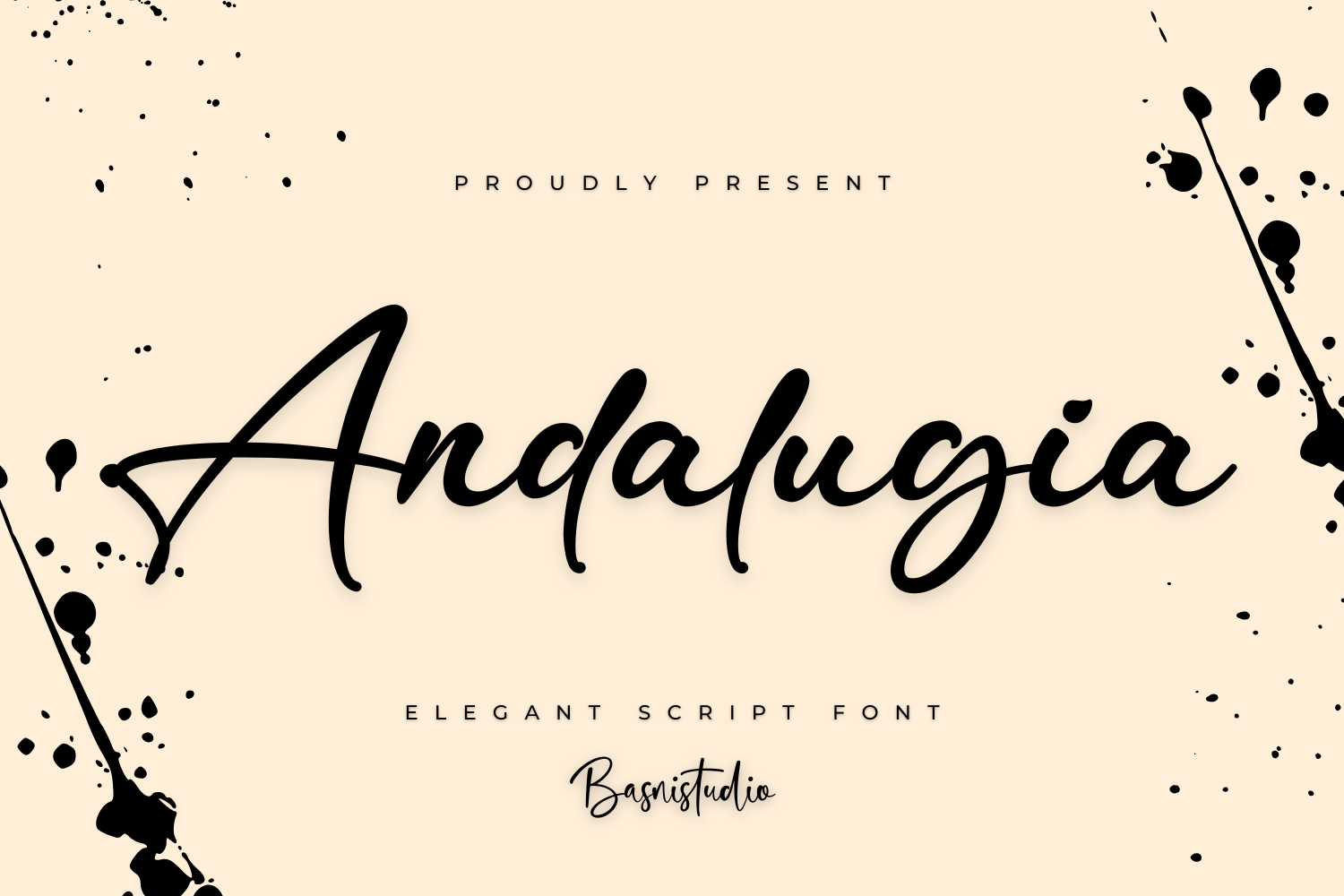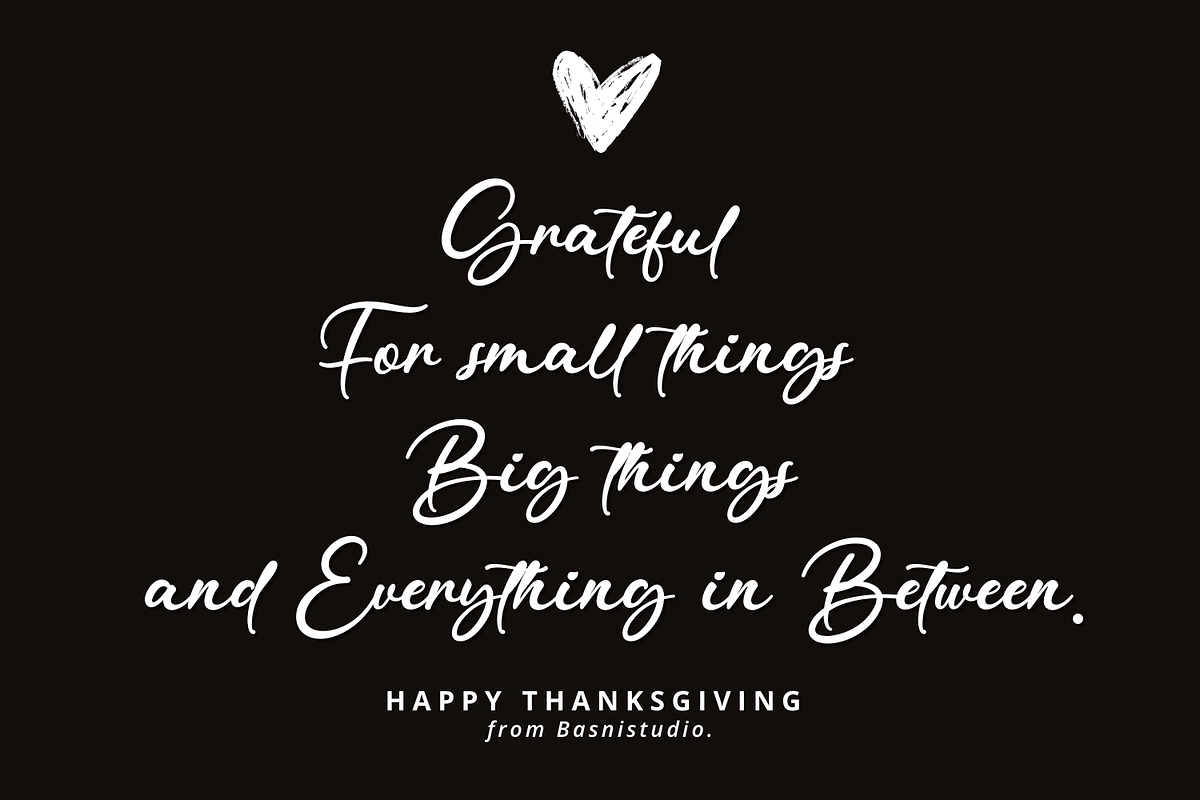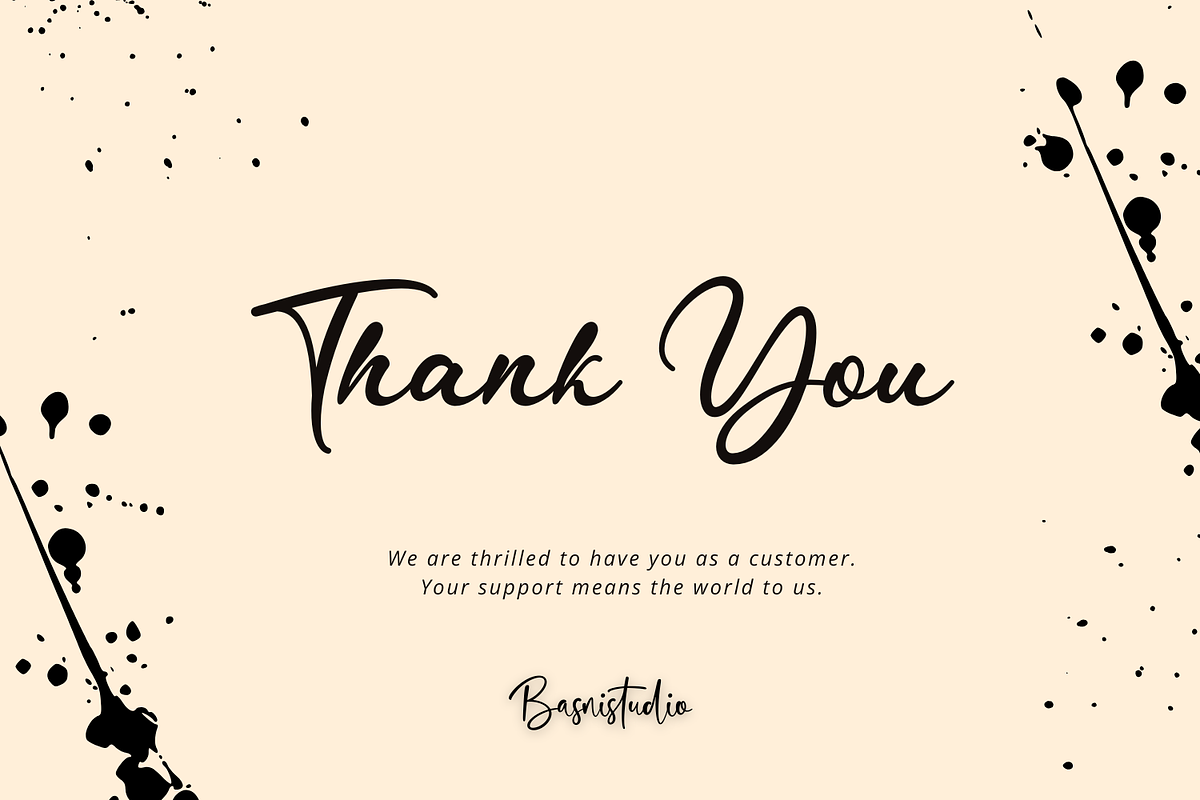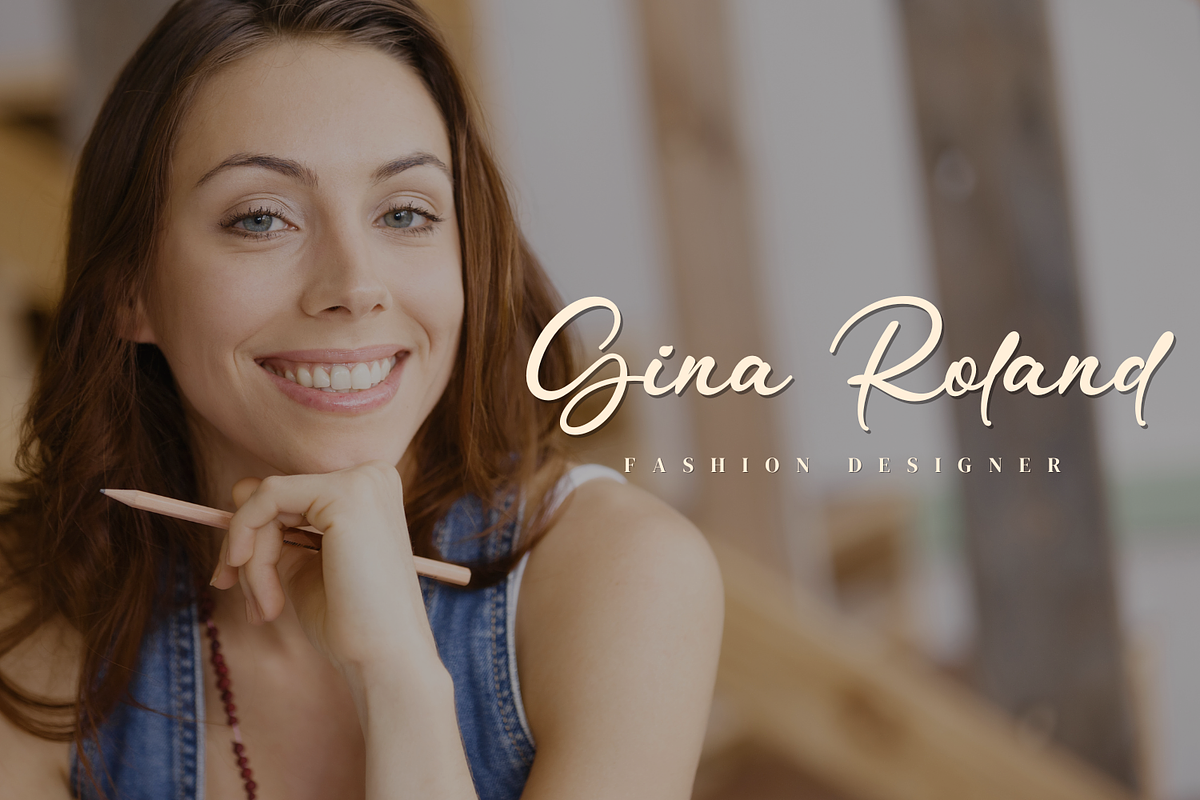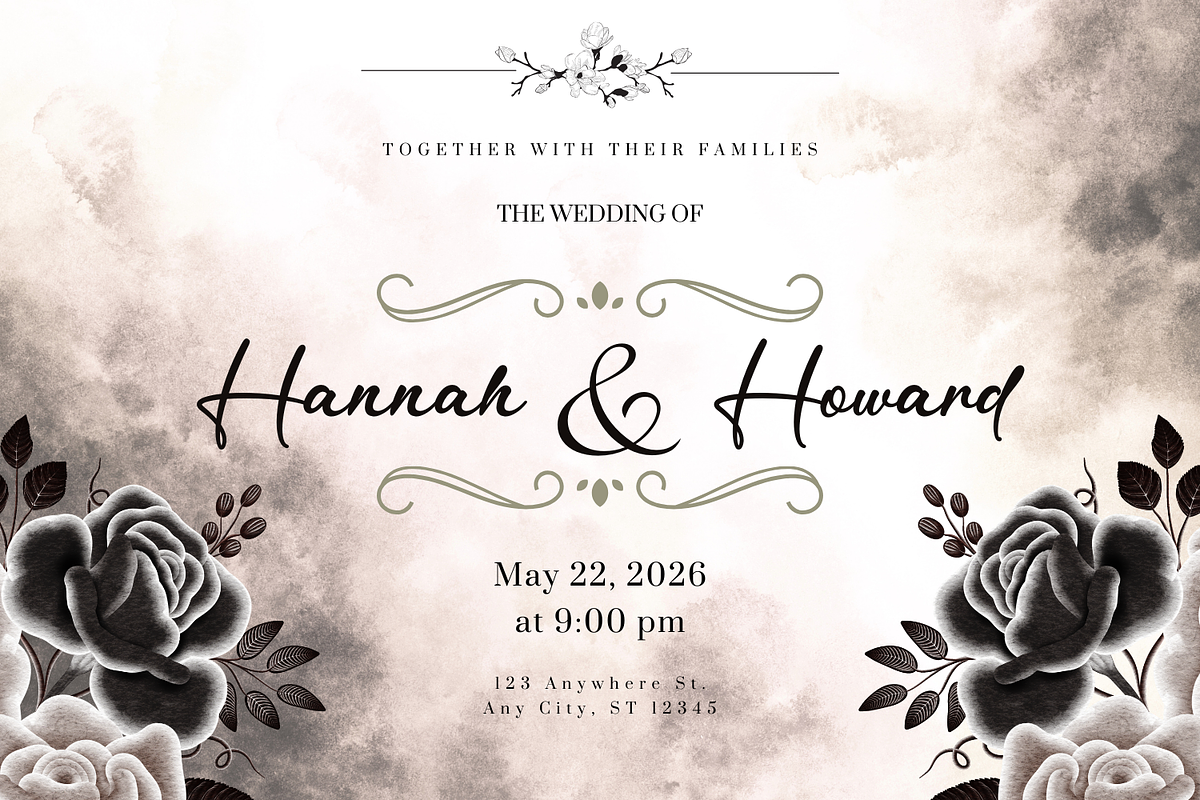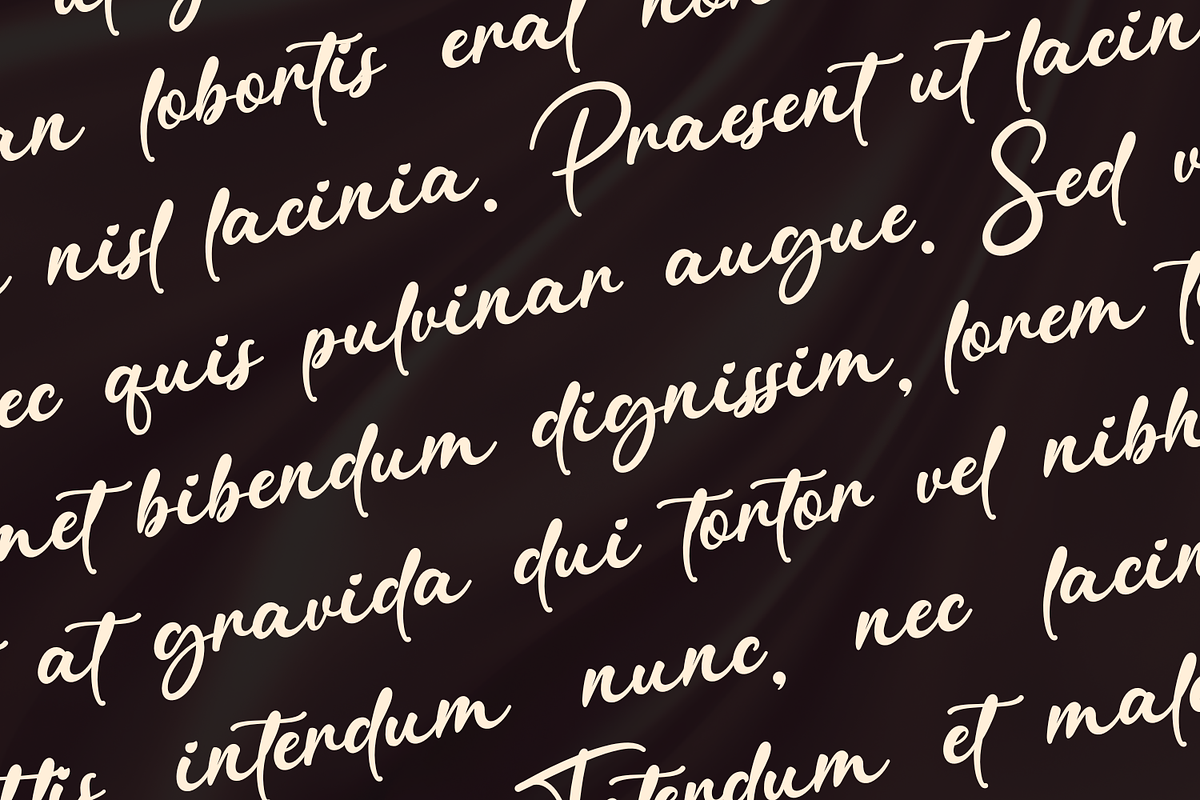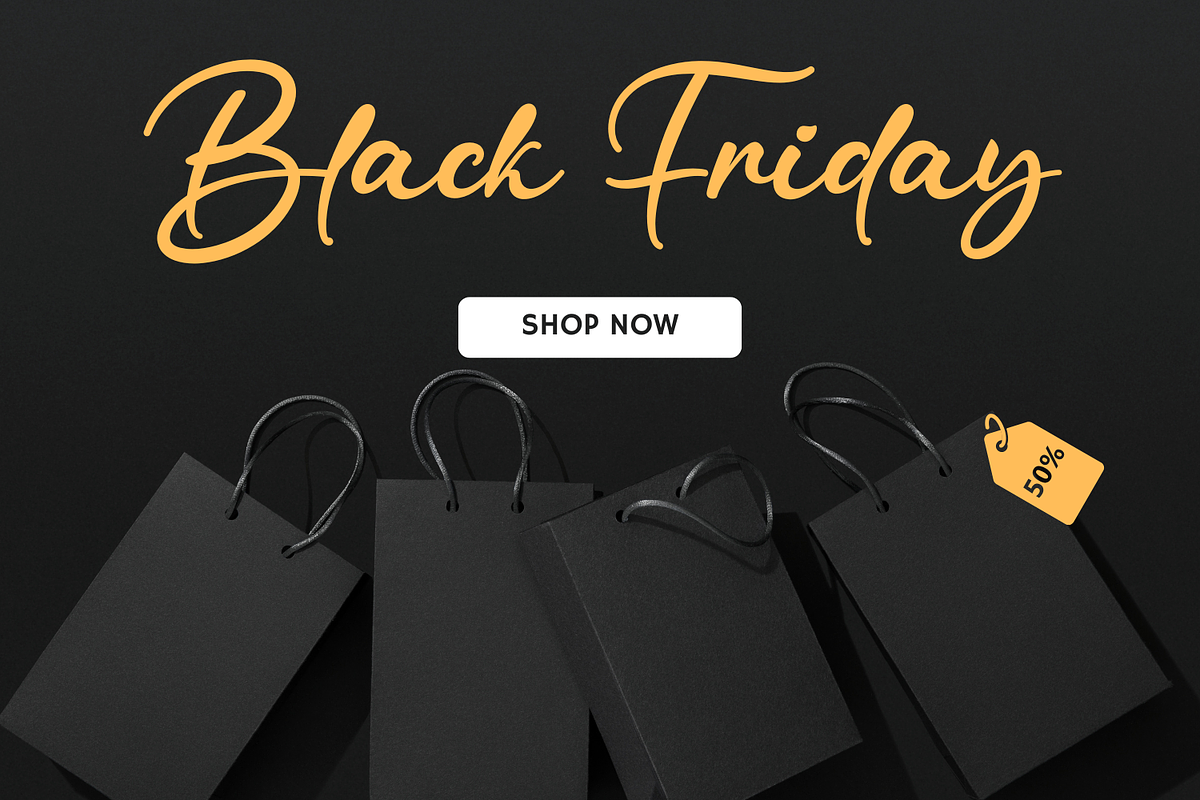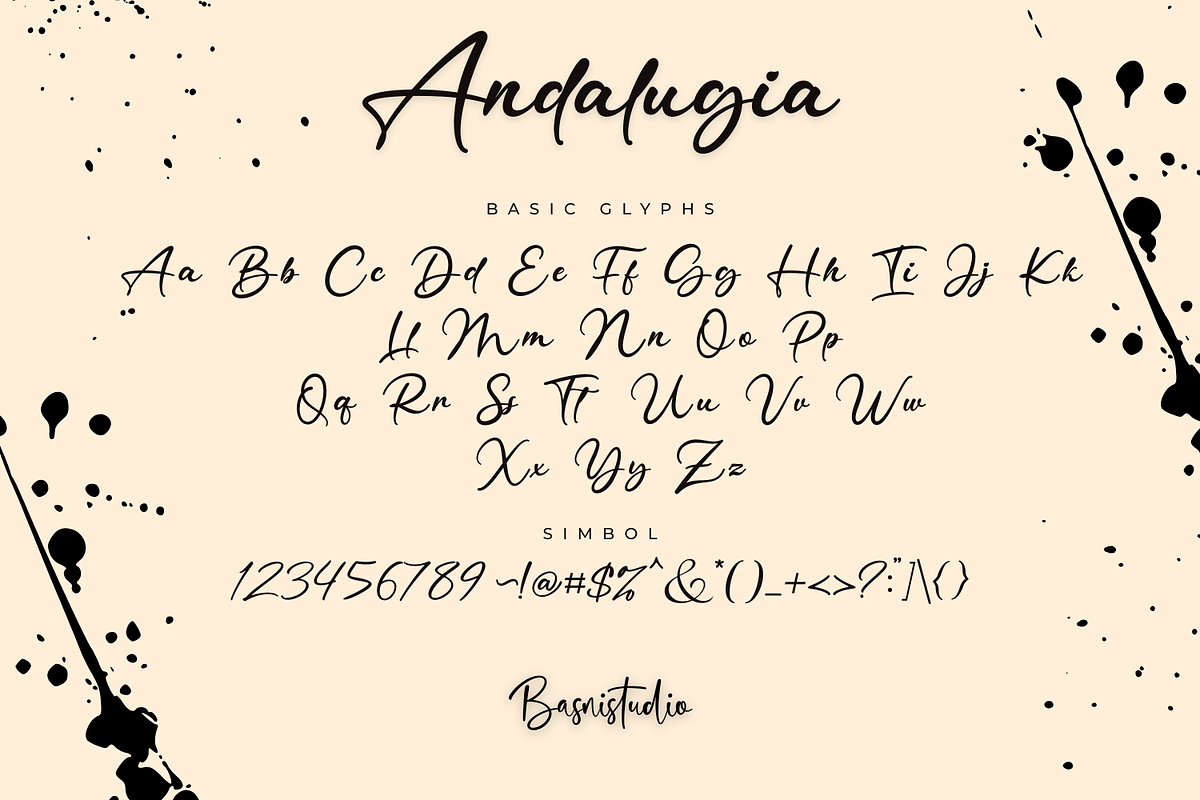
Andalugia Elegant Script Font
The Perfect Handwritten Touch for Your Designs
Looking for a font that brings warmth, personality, and authenticity to your projects? Andalugia is a Elegant Script Font that adds a elegant, versatile touch to everything from branding and social media to invitations and packaging.
✔ Elegant & Versatile – Perfect for logos, quotes, greeting cards, and more ✔ Authentic Handwritten Feel – Created with real pen strokes for a natural look ✔ Easy to Use – Works seamlessly with all major design programs
Whether you're building a powerful brand identity or crafting a standout logo, Andalugia is a Elegant Script Font
gives you the creative edge you need.
Uppercase & lowercase letters Ligature Numbers & punctuation Multilingual Support ( Support for 90 languages )